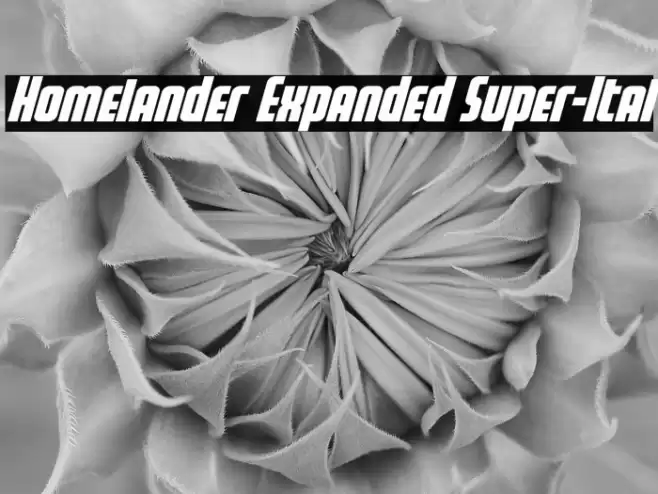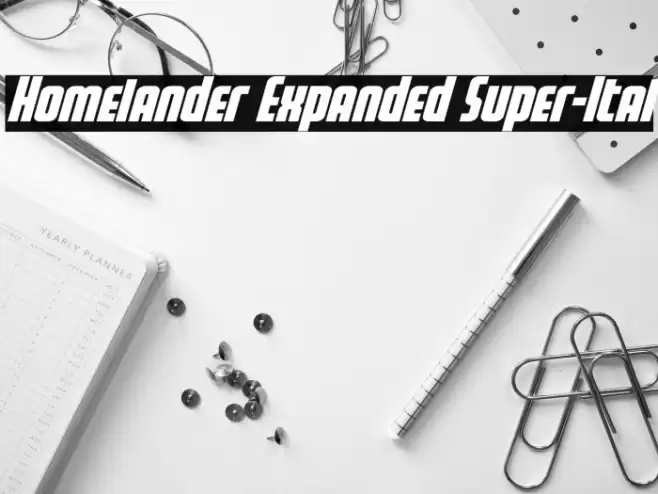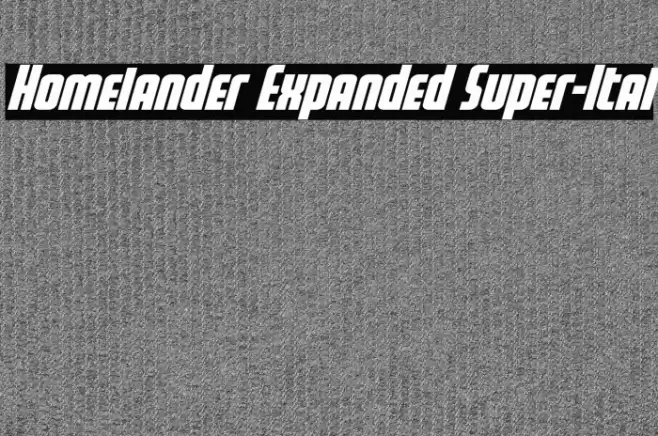
Homelander Expanded Super-Ital Font
Homelander Expanded Super-Ital Description
This font features a bold and dynamic style with a strong presence. The characters are expanded and italicized, giving them a forward-leaning, energetic appearance. The strokes are thick and consistent, providing a uniform look across all characters. The uppercase and lowercase letters maintain a cohesive design, with sharp angles and clean lines. The numbers and special characters are equally bold, ensuring readability and impact. This font is ideal for projects that require a modern and assertive typeface.
A bold, expanded, and italicized font with a dynamic and modern style from Uncategorized fonts.
- Proposed Projects: Ideal for headlines, posters, branding, and any design needing a strong, impactful typeface.
- Width: Expanded